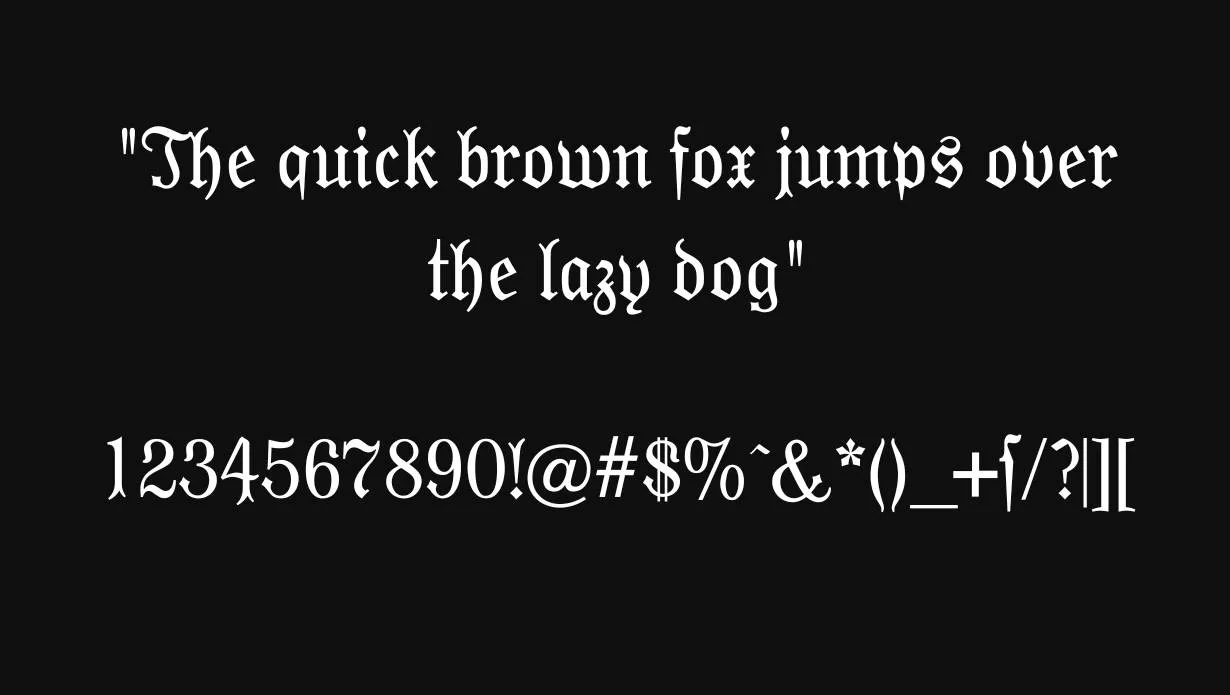
The Moderne Fraktur font is like a fusion of classic and contemporary styles. Its clean lines and modern twist make it versatile for creating elegant wedding invitations, sophisticated restaurant menus, or minimalist brand logos.
With a standard width and balanced weight, this font ensures that your words convey a sense of modernity while paying homage to the traditional Fraktur style. Picture using the Moderne Fraktur font for designing sleek and upscale product packaging, seamlessly blending tradition with a touch of the current.
| Name | Moderne Fraktur Font |
| Designer | Dieter Steffmann |
| Style | Gothic |